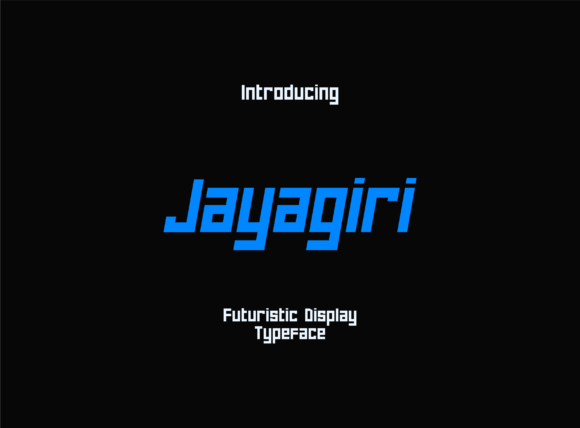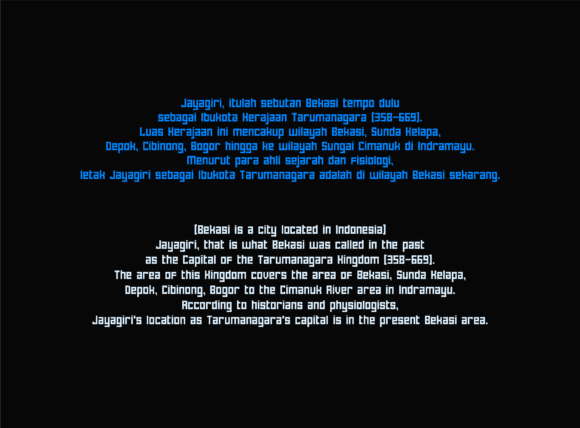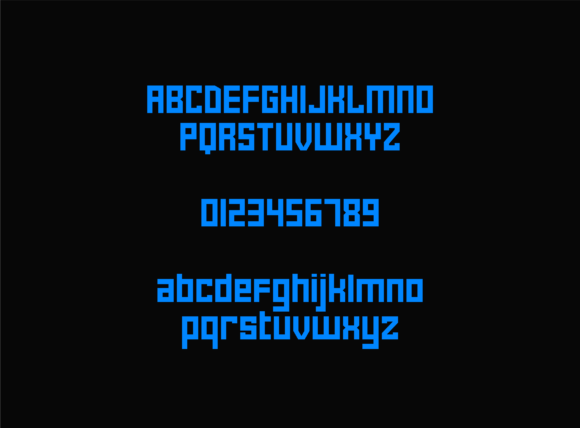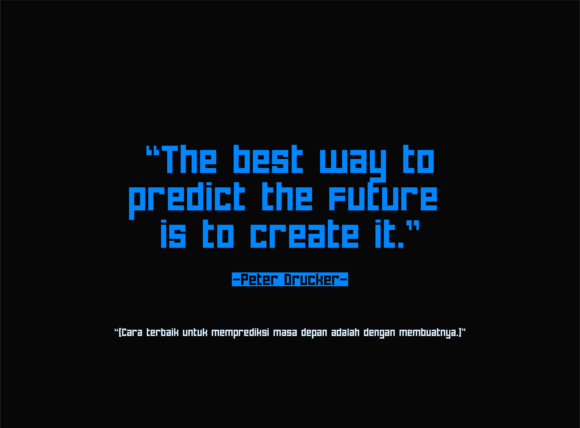
One of the key elements that can elevate your design to the next level is the right font. That’s where the Jayagiri Font comes in – a bold, clean, and modern display font that’s perfect for making a statement. Whether you’re working on a logo, a poster, or a website, Jayagiri Font is the perfect addition to your design arsenal.
Jayagiri Font Key Features
- Font Type: Jayagiri is a sans-serif font, specifically designed for digital use.
- Unique Characteristics: Jayagiri features a unique blend of modern and traditional design elements, making it suitable for a wide range of applications, from digital signage to publishing.
Jayagiri Font Review
I recently had the chance to work with the Jayagiri Font, and I must say it’s a unique and interesting choice. ✨ One of the things that stood out to me is its elegant and refined appearance. It’s perfect for use in upscale branding, publishing, or any project where you want to convey a sense of sophistication.
Another thing that works well with Jayagiri Font is its versatility. ✨ It comes in a range of weights and styles, making it easy to use in a variety of contexts. Whether you’re looking for a bold, attention-grabbing font or a more subtle, understated option, Jayagiri Font has got you covered.
Here are some specific features that I appreciate:
- Wide range of weights and styles
- Elegant and refined appearance
- Perfect for upscale branding and publishing
- Easy to use in a variety of contexts
However, there are some limitations to consider: ⚠️ The font can be a bit difficult to read at smaller sizes, and it may not be the best choice for projects where you need a lot of text to be displayed at once. Additionally, the font’s uniqueness can sometimes make it feel a bit over-the-top or pretentious.
Overall, I think the Jayagiri Font is a solid choice for designers looking to add a touch of elegance and sophistication to their projects. While it may not be the best fit for every project, it’s definitely worth considering for the right use case.
Jayagiri Font is ideal for use in:
1. Traditional and cultural designs.
2. Asian-inspired artwork and graphics.
3. Custom invitations and stationery.
4. Branding and logo design.